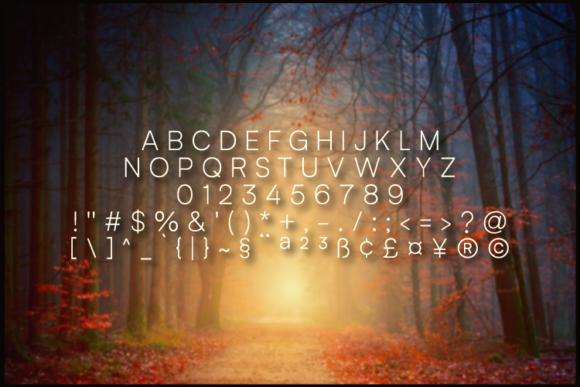
Introduction to Leonare Thin Font
Leonare is a tasteful sans serif font.
Its casual charm makes it appear wonderfully down-to-earth, readable and, ultimately, incredibly versatile Leonare will look outstanding in any context, whether itโs being used on busy backgrounds or as a standalone headline.
Key Features of Leonare Thin Font